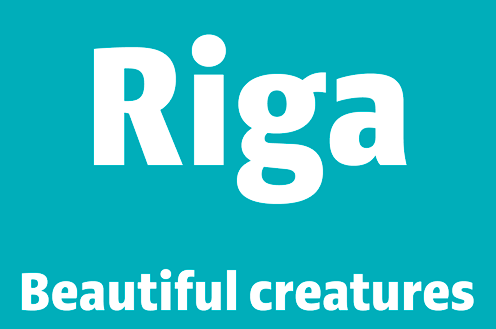
Riga is a space-saving and legible typeface designed to work equally well on paper and on the computer screen. Its personality is clear and practical, yet warm and polite. Riga is suitable for a wide range of typography such as editorial, websites, packaging and corporate design. Economical proportions, high x-height and open letter forms guarantee good performance in narrow columns and tight headlines. Riga is exceptionally readable at small point sizes and elegant at larger ones. Riga comes in 18 styles and weights and contains a large number of OpenType features.